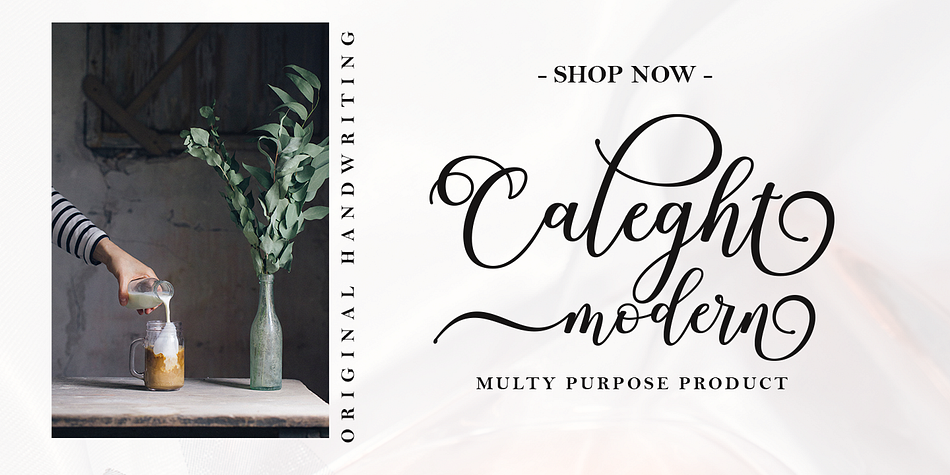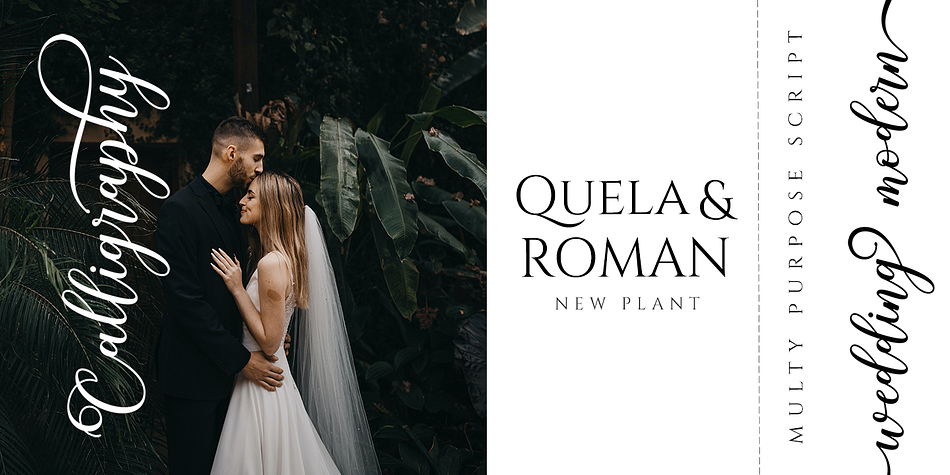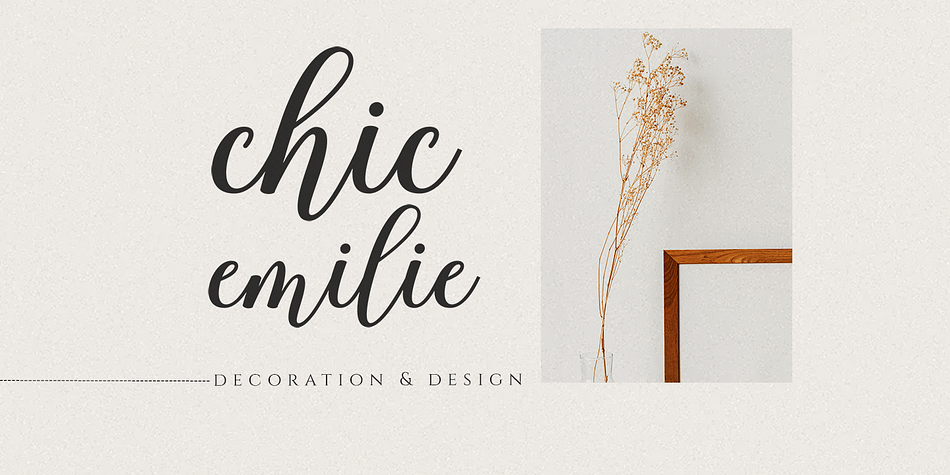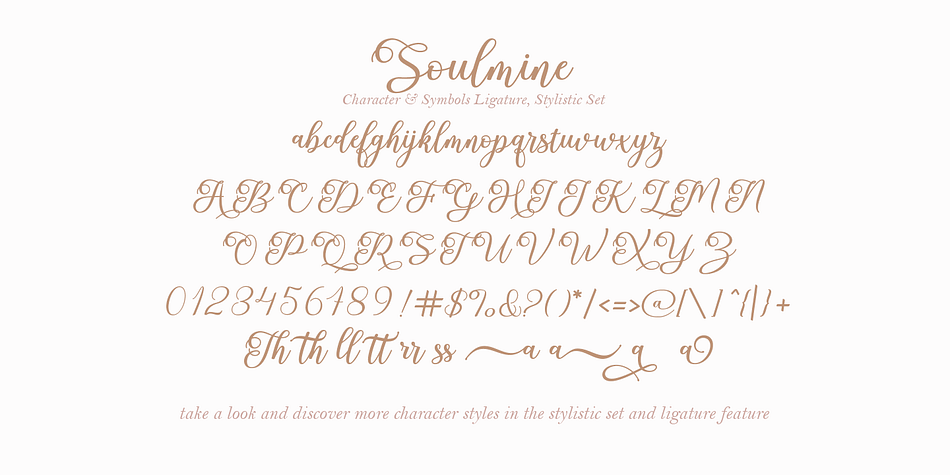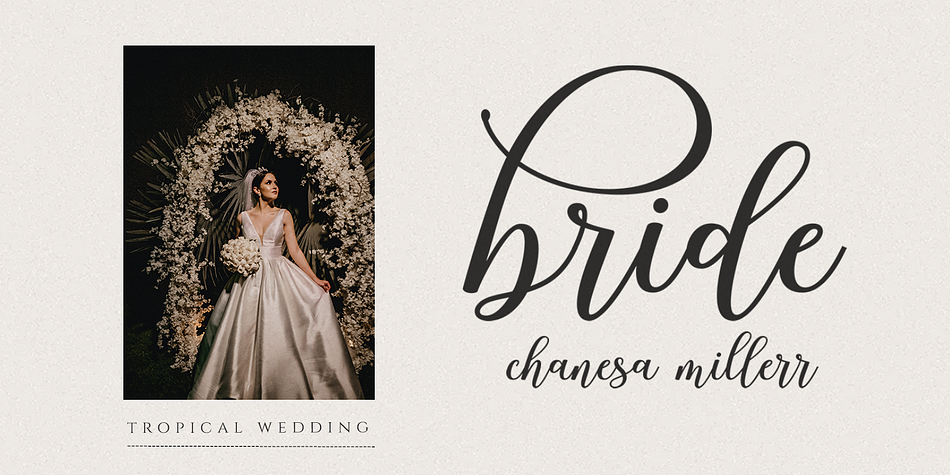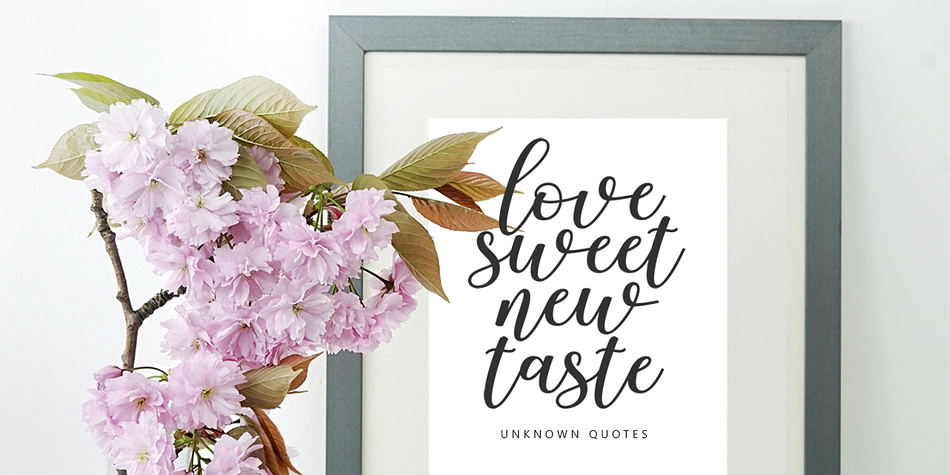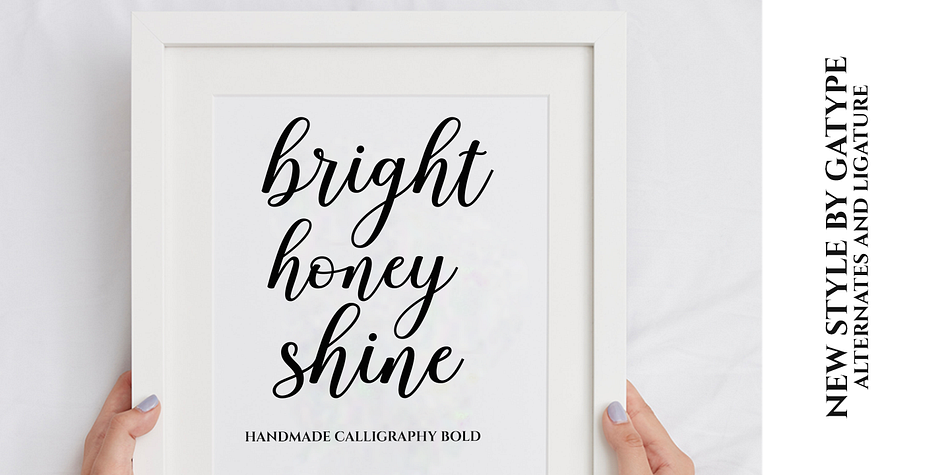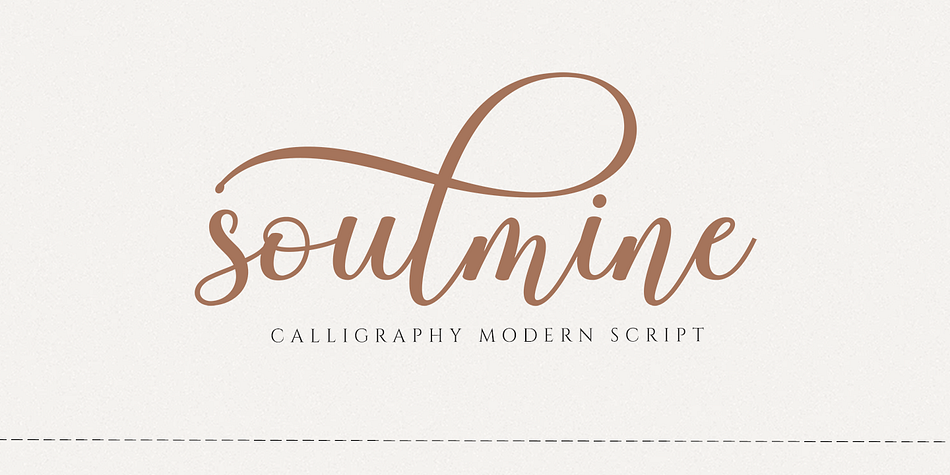
Soulmine
Soulmine is a modern calligraphy font family published by Gatype.
Soulmine Script is a modern calligraphy font, each letter is carefully crafted to make your text look beautiful. With a modern script style, this font will suit a variety of projects, for example: invitations, greeting cards, posters, business cards, quotes, blog headers, branding, logos, fashion, clothing, letters, stationery and more!
Soulmine including OpenType Stylistic alternates, ligatures and international language support.